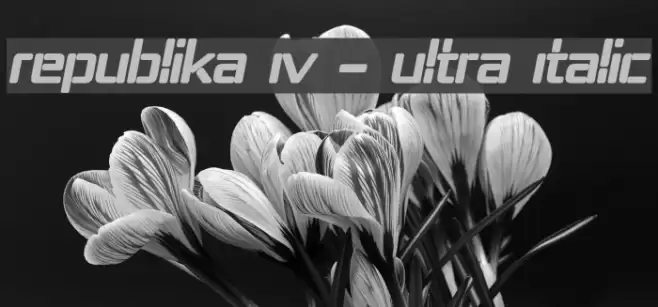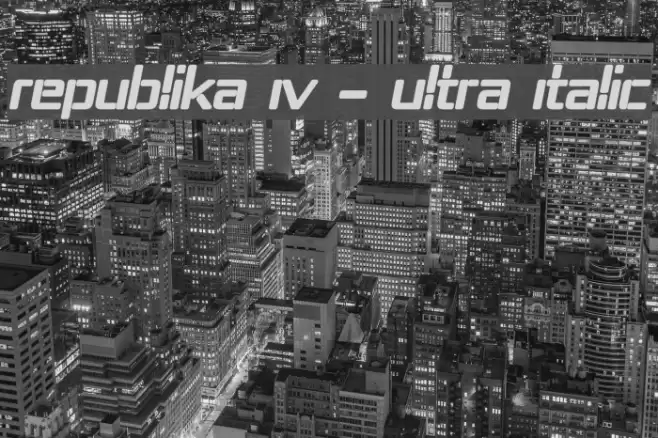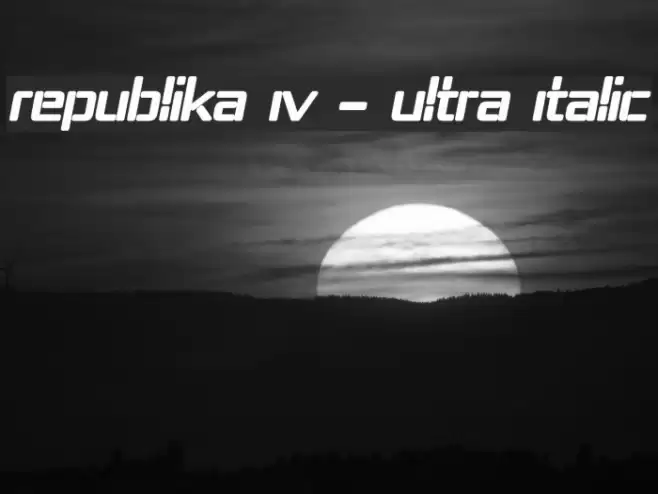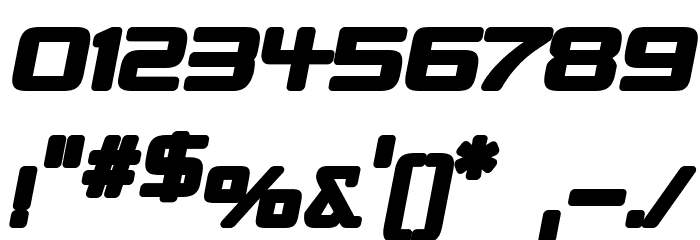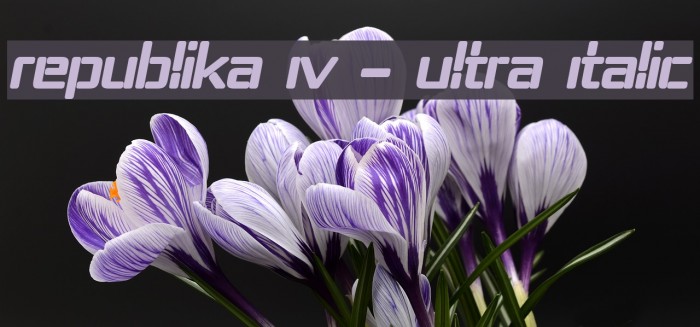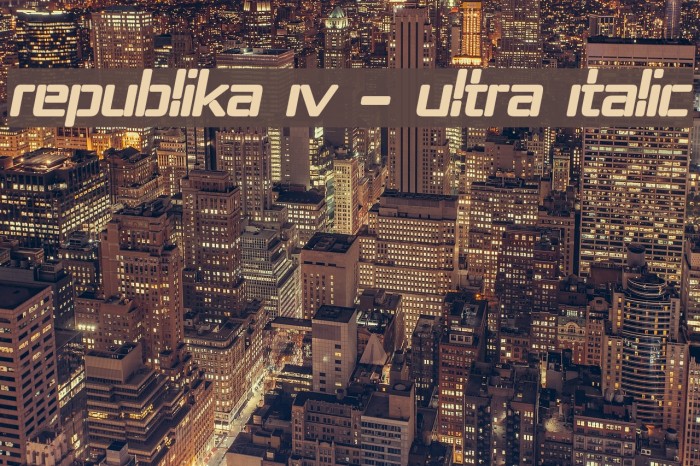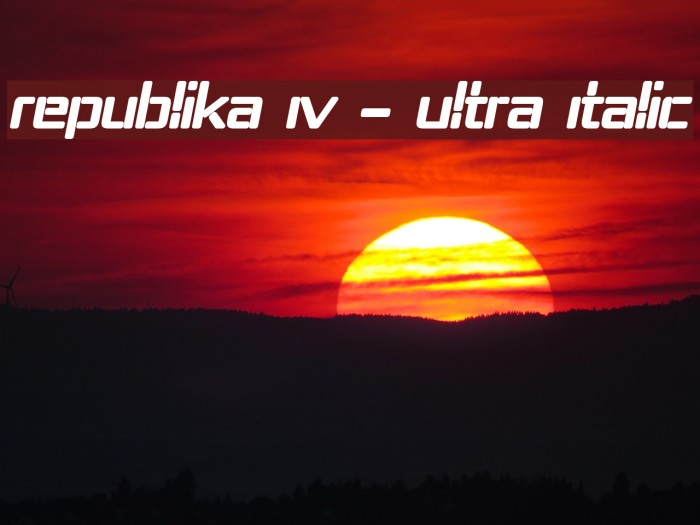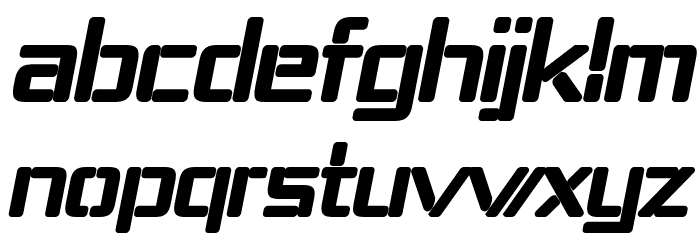
Republika IV - Ultra Italic Font
Republika IV - Ultra Italic Description
This font features a bold, italicized style with a modern and futuristic aesthetic. The characters are slightly condensed, giving a sleek and streamlined appearance. The strokes are consistent in thickness, providing a uniform look across all characters. The rounded edges and smooth curves contribute to its dynamic and energetic feel. The font maintains a high level of legibility, making it suitable for various design applications. Its distinctive style is characterized by a forward-leaning slant, enhancing its sense of motion and speed.
A bold, italicized font with a modern, futuristic look and consistent stroke thickness from Uncategorized fonts.
- Proposed Projects: Ideal for technology branding, sports team logos, video game titles, and futuristic-themed posters.